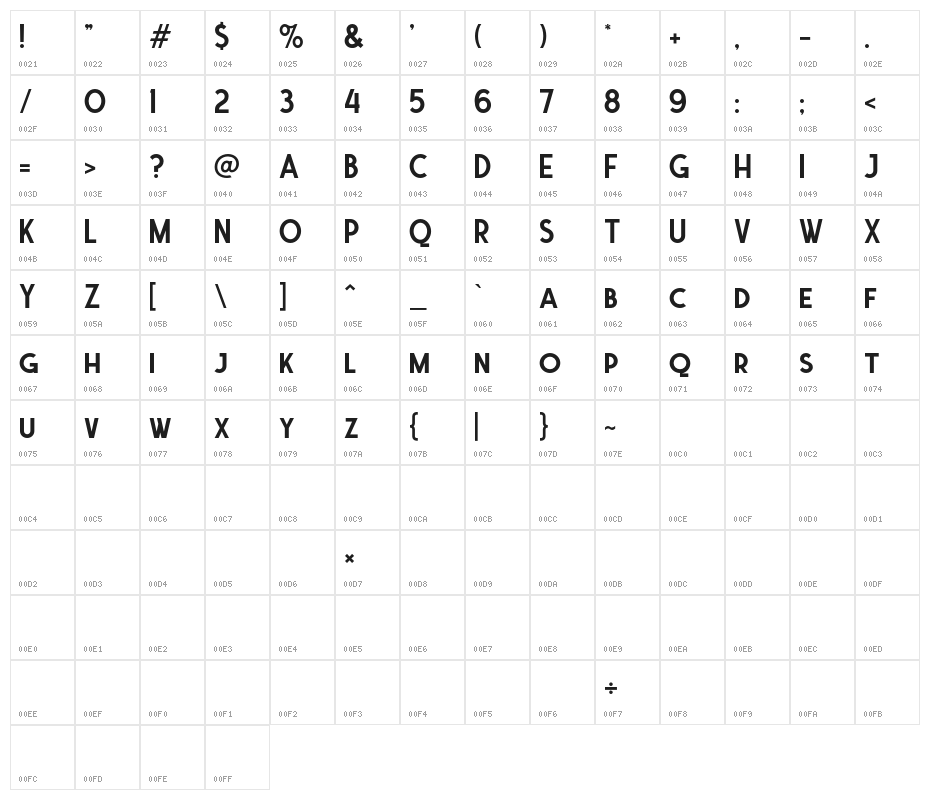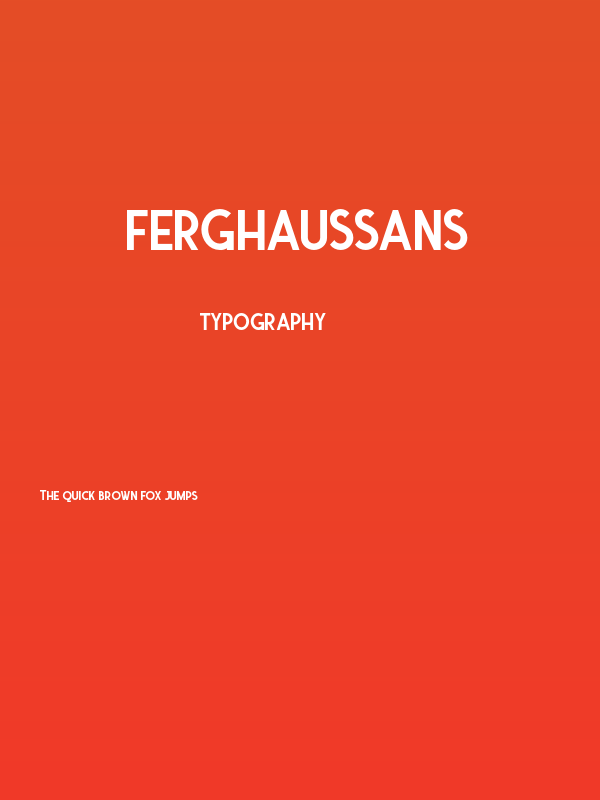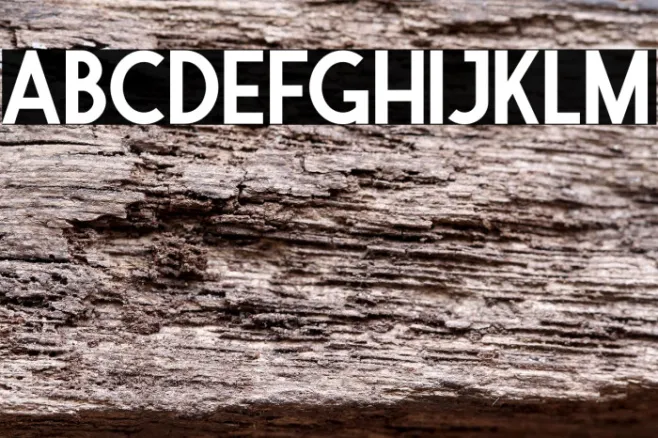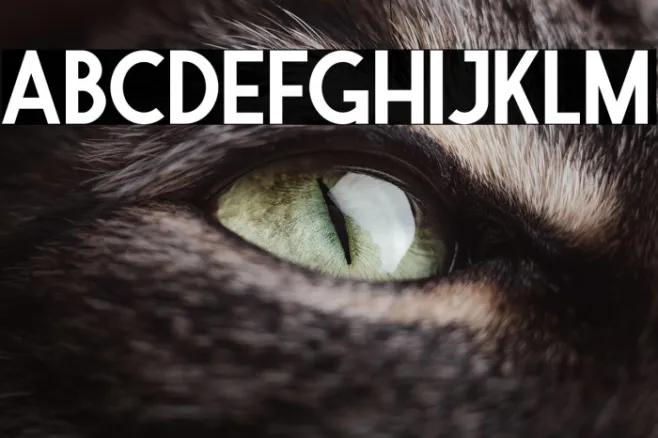
FerghausSans Font
FerghausSans Description
This font features a bold and modern sans-serif style with clean, geometric lines and a strong presence. The uppercase letters are uniform in height, creating a cohesive and balanced look. The lowercase letters maintain a similar geometric structure, ensuring readability and consistency. The numerals are clear and distinct, complementing the overall design. Special characters are well-integrated, maintaining the font's modern aesthetic. This font is versatile, suitable for a variety of design applications where a bold and contemporary look is desired.
| Proposed Projects | Ideal for branding, advertising, headlines, and digital media where a strong, modern impact is needed. |